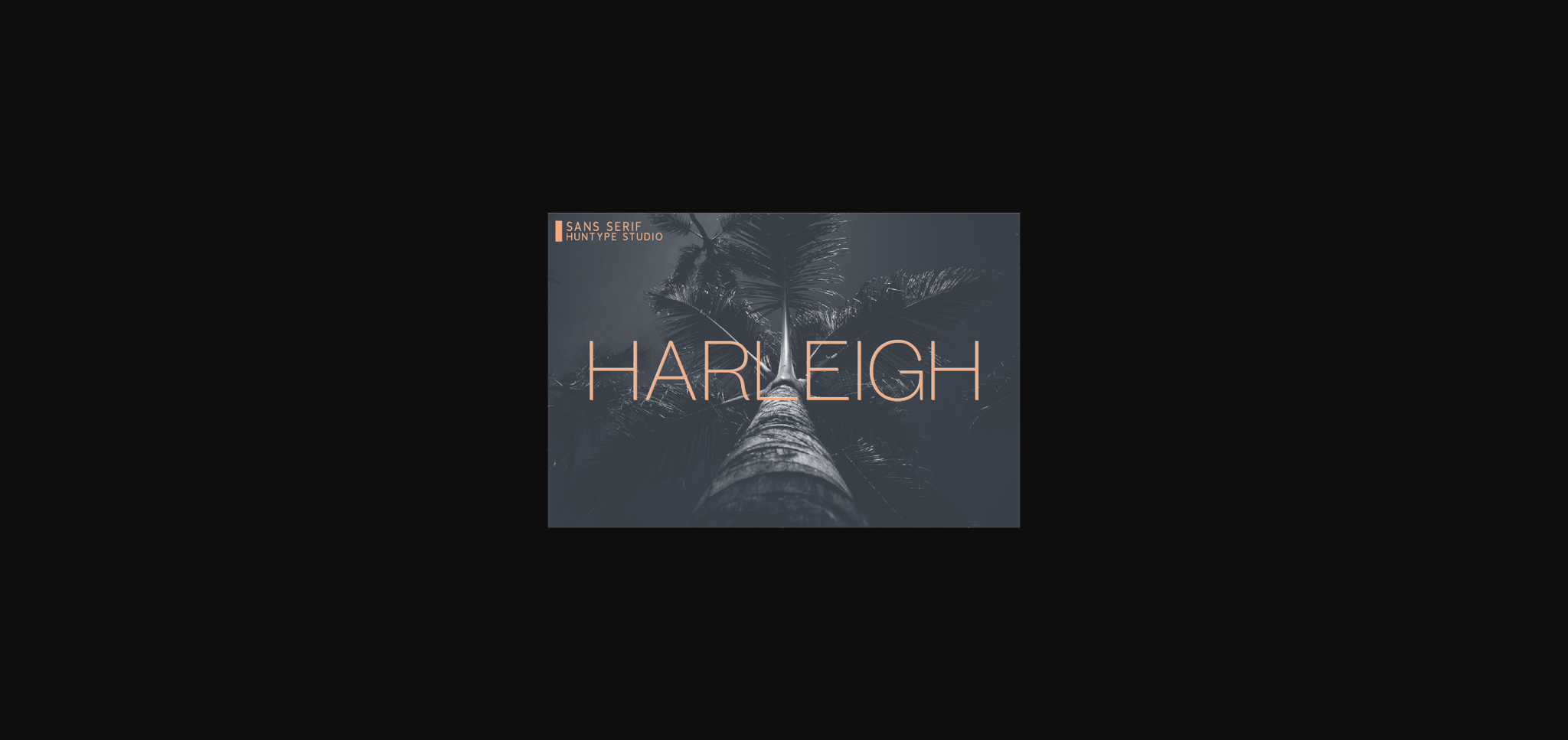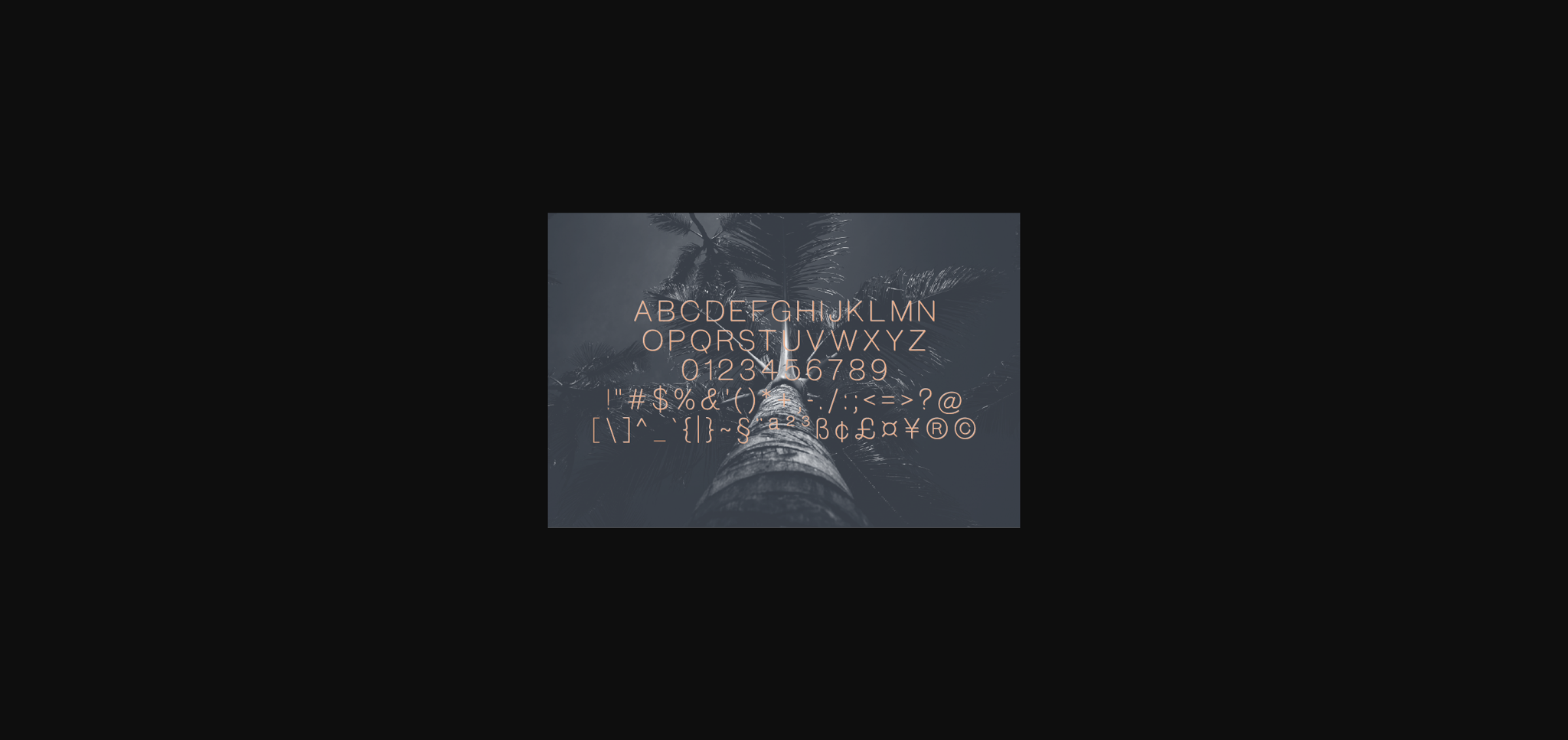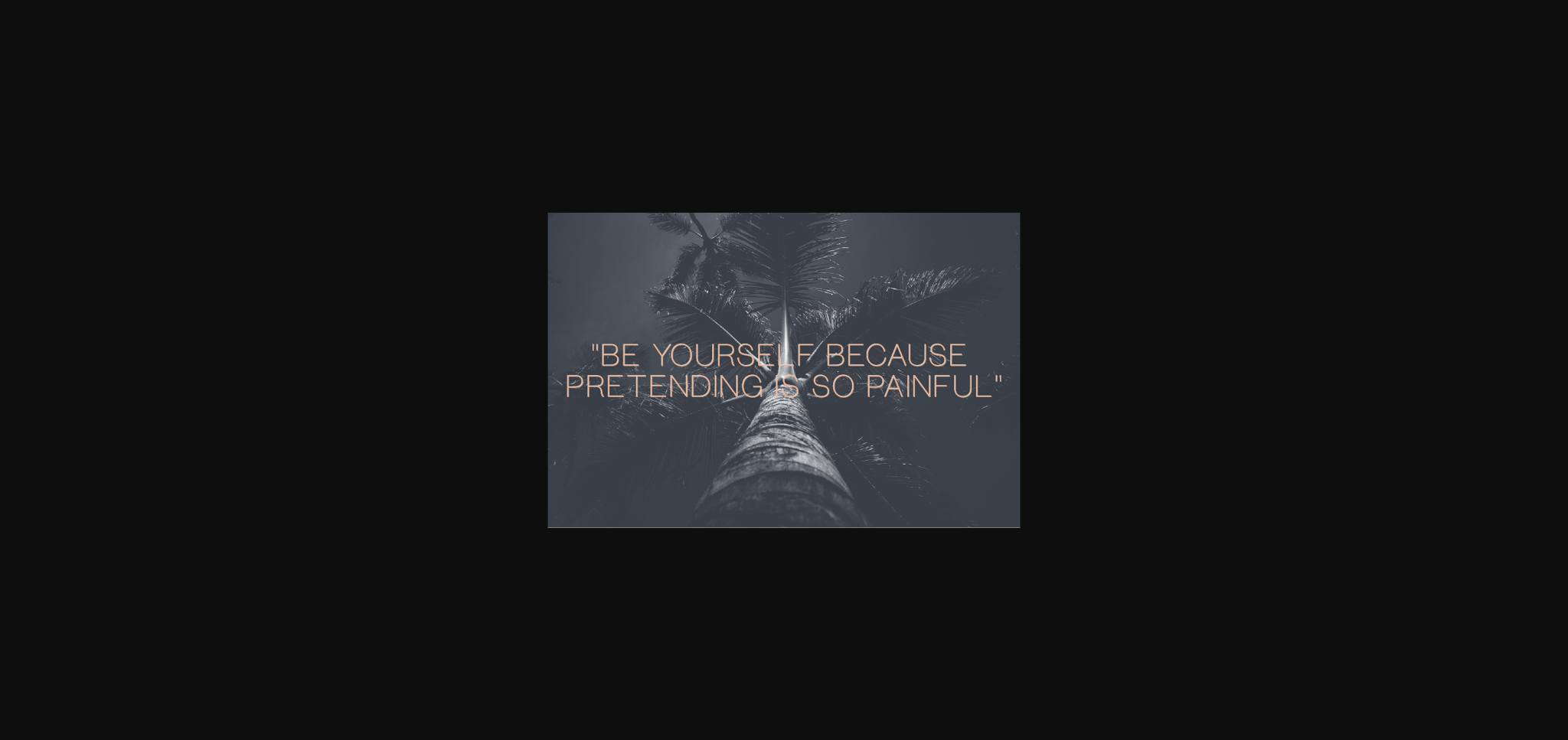
Harleigh Font
About Harleigh Font
Harleigh is a thin and smooth sans serif font. It can easily be matched to an incredibly large set of projects, so add it to your creative ideas and notice how it makes them stand out!